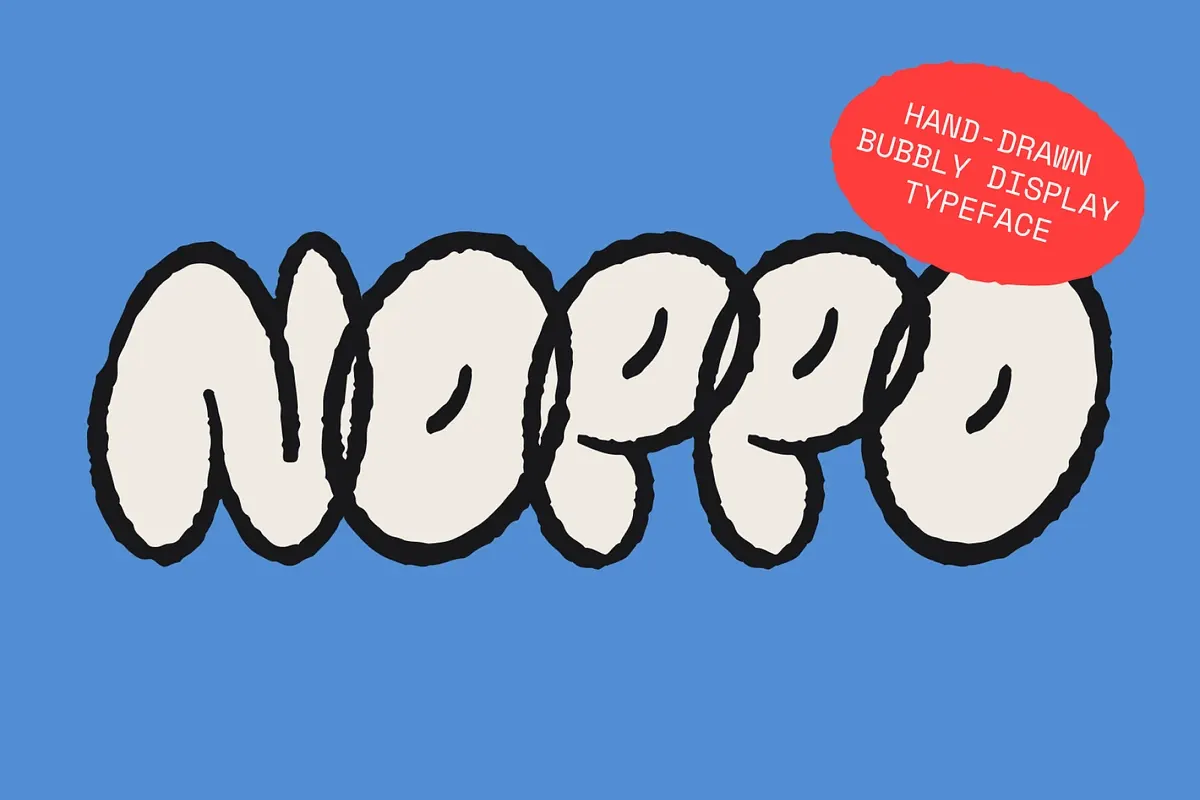
You must purchase this font for commercial use. However, you can download NOPPO — Hand-Drawn Bubbly Typeface Free Download for testing purposes. NOPPO is a playful, hand-drawn typeface full of charm and personality, perfect for creative projects that call for a fun and informal touch. Its bubbly, rounded letters give off a whimsical vibe, making it ideal for children's books, party invitations, quirky branding, DIY packaging, and eye-catching social media posts.
Designed to bring joy and approachability to any layout, NOPPO stands out with its organic, handcrafted style and cartoon-like appeal. The uneven, imperfect strokes mimic the look of real handwriting, adding authenticity and warmth to your design. With a friendly tone and standout character, NOPPO — Hand-Drawn Bubbly Typeface Free Download is a fantastic choice when you want your typography to feel personal and lively. Test it in your next design project and experience its creative energy. Don’t forget to acquire the proper license before using it for any commercial applications. Download NOPPO — Hand-Drawn Bubbly Typeface Free Download today and bring your ideas to life with playful lettering.